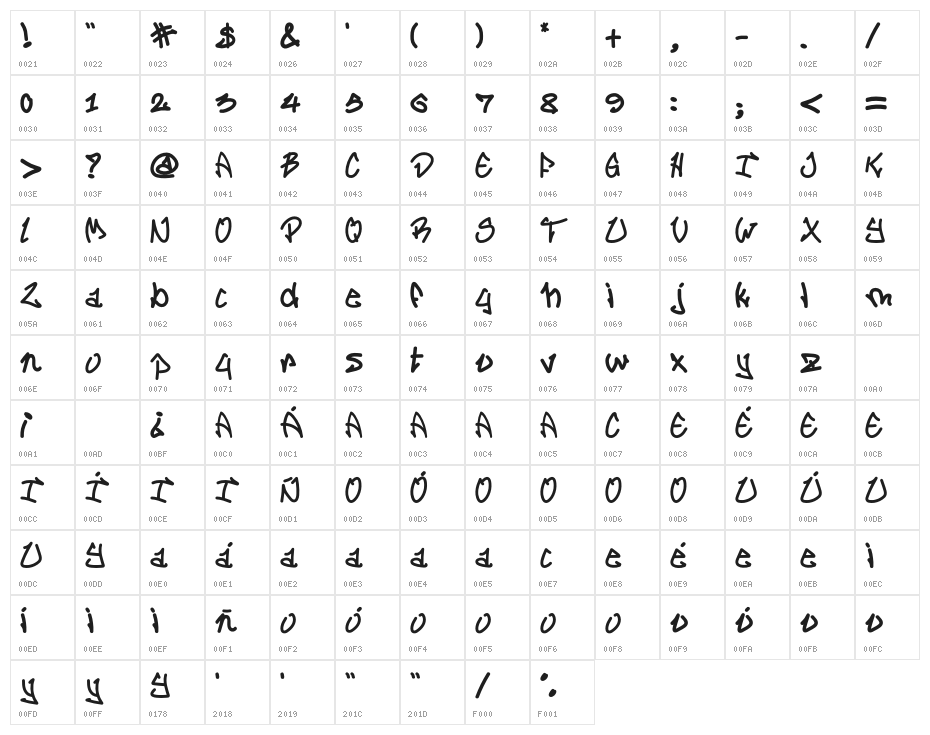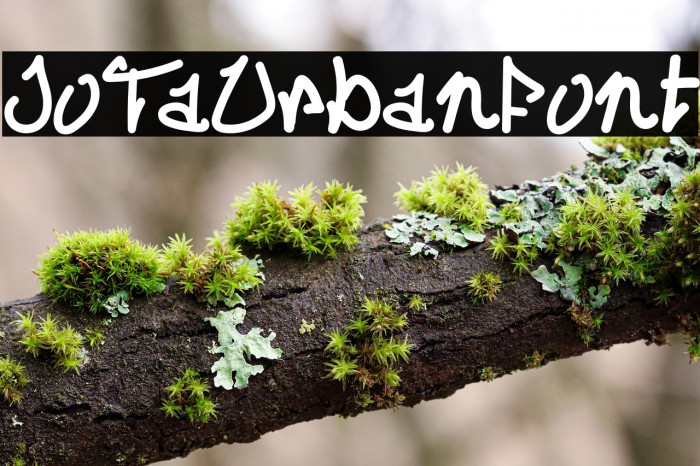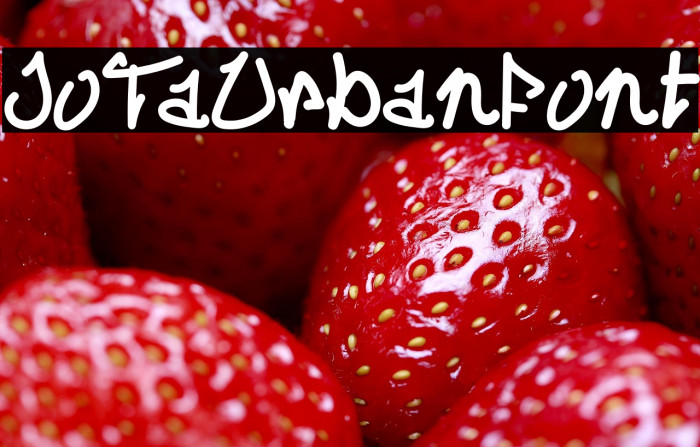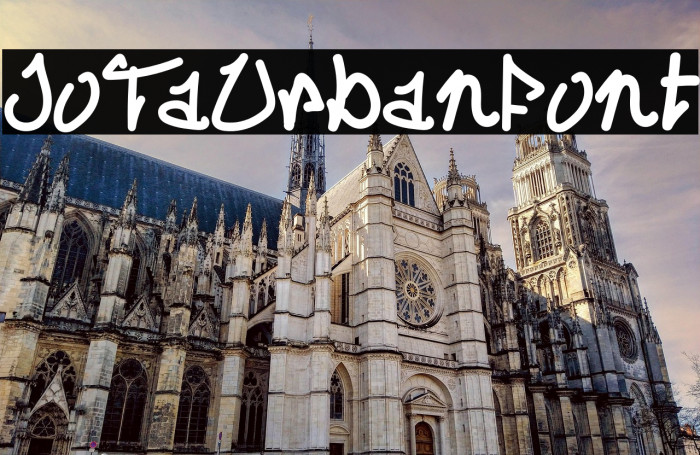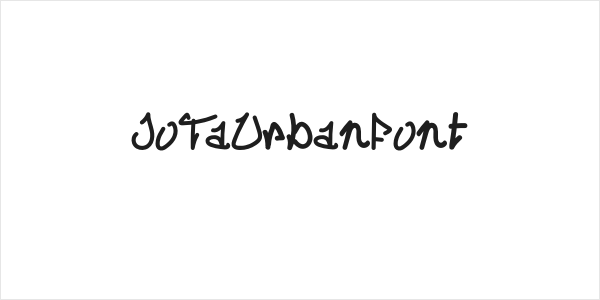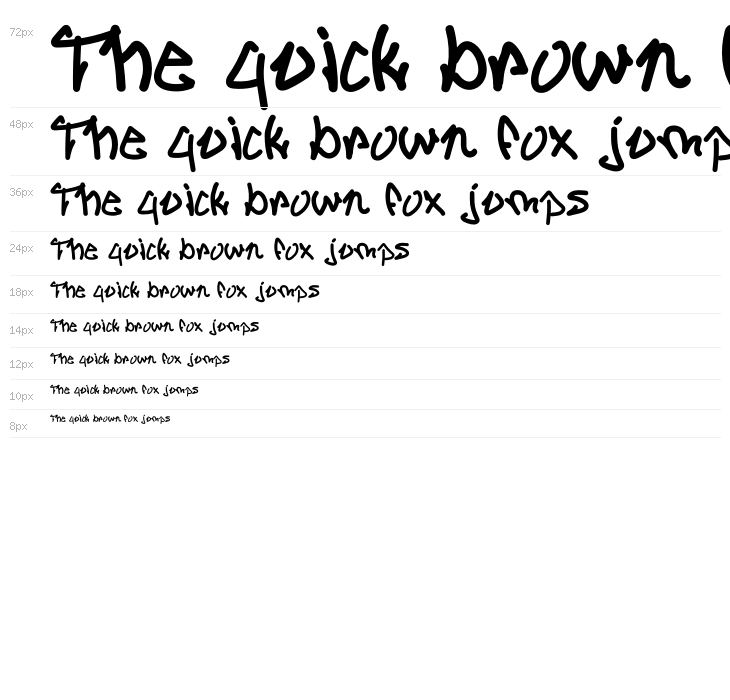
JoTaUrbanFont Font
JoTaUrbanFont Description
This font features a bold, graffiti-inspired style with a dynamic and energetic appearance. The letters are characterized by their thick strokes and playful, irregular forms, giving them a hand-drawn, urban feel. The uppercase and lowercase letters maintain a consistent style, with a slight slant that adds to the casual and informal vibe. Numbers and special characters follow the same aesthetic, ensuring a cohesive look across all text elements. The font's unique style makes it stand out, perfect for projects that require a bold and expressive touch.
| Overall Style | Urban, Graffiti, Bold |
| Proposed Projects | Ideal for street art designs, music album covers, urban-themed posters, and branding for edgy or youthful brands. |